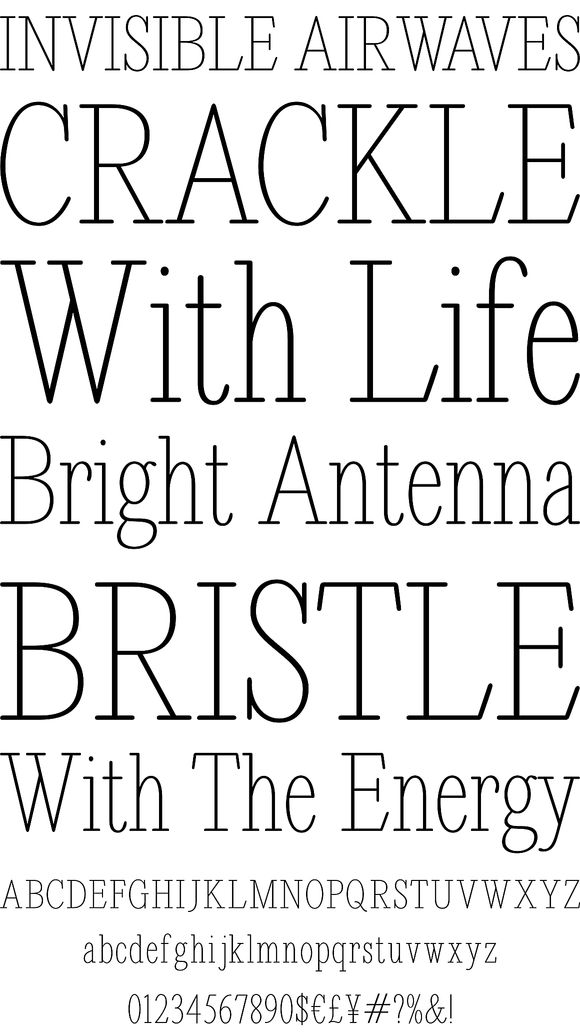
Revelation is a text typestyle that offers a diversity of usage and settings through its wide array of variants in weight and width, from condensed to expanded, regular to bold, and even outline versions.